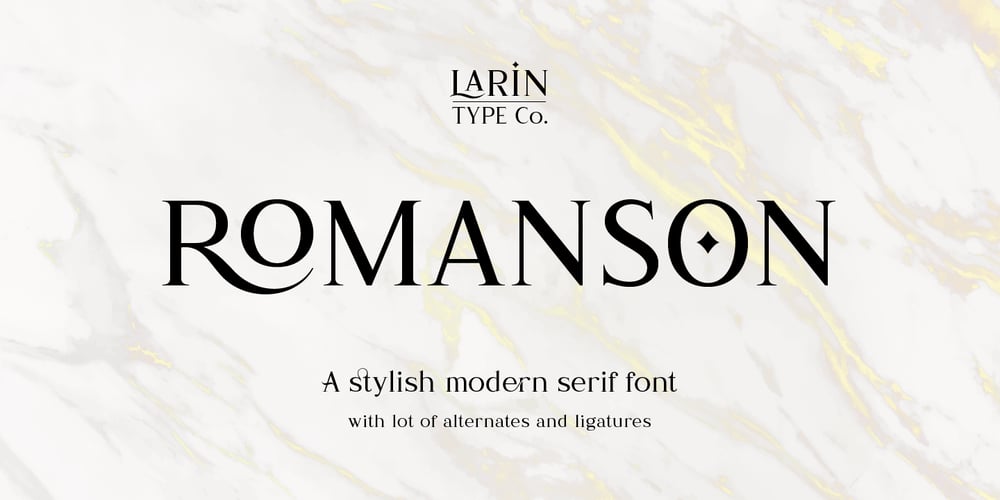
Romanson Font Family was designed by Pavel Larin and published by Larin Type Co. Romanson contains 1 styles and family package options. Romanson – a modern display serif font with a lot of alternates and ligatures. This font can look more classic (conservative) serif, which is perfect for texts. So same he can be more expressive, playing and more modern with alternative substitutes and ligatures, try to play with them and you will get the uniqueness in your project. Just try to create a logo from uppercase, change them to create the best and harmonious and inimitable design. This font includes 205 Uppercase, 27 Lowercase alternates and 51 Ligatures.